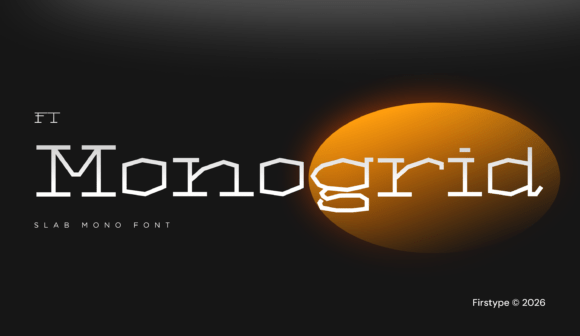
Monogrid: A Display Typeface That Cuts Through the Feed
It’s 8:47 a.m., and I’m squinting at a YouTube thumbnail on my phone—halfway zoomed in, thumb hovering over “send.” The headline reads *“New Features Drop Friday”*, but the current font feels soft. Blurry at the edges. Like it’s apologizing for existing. I swap it out for Monogrid, bump the weight to Bold, tighten the tracking by 20 units—and suddenly, it’s not just readable. It’s unignorable. That’s the moment Monogrid earned its spot in my campaign toolkit.
Monogrid isn’t built for body text or long paragraphs. It’s a display typeface engineered for impact: sharp terminals, rigid geometry, and a modular grid foundation that gives every letter an unmistakable sense of intention. It doesn’t whisper—it declares. Its personality is precise but never sterile; futuristic without leaning into sci-fi clichés; bold without sacrificing clarity. Think technical confidence meets visual authority—ideal when your message needs to land in under two seconds.
I used Monogrid across a six-week Instagram content series for a digital course launch. Not as filler—but as structural punctuation. For example:
What makes Monogrid work so well in these contexts? First, its vertical stress and generous x-height hold up even at small sizes—critical for mobile previews and thumbnails where legibility evaporates fast. Second, its consistent stroke width and open counters prevent visual “mushing” on compressed screens or low-res exports. Third, the rigid grid means letters align predictably across layouts—so your Instagram Story template stays crisp whether you’re swapping headlines daily or reusing assets across Pinterest and email.
It shines brightest in short-form, high-impact roles: sale announcements (“FLASH SALE — 48 HOURS”), webinar banners (“Live Demo: June 12”), product teasers (“Coming Soon. Very Soon.”), and branded content labels (“MONOGRID SERIES // EPISODE 01”). Avoid using it for captions, pricing tables, or multi-line descriptions—its strength is singularity, not stamina. Save those jobs for a clean sans serif (like Inter or Manrope) or a warm, highly legible serif (like Lora or EB Garamond) for pairing.
Font pairing is where Monogrid becomes strategic. I default to a neutral, humanist sans for supporting text—something with friendly proportions and strong hinting for screen use. When layering Monogrid over photography or gradients, I’ll often add a subtle white or black stroke (1–1.5px), especially on busy backgrounds. On dark UIs or video overlays, Monogrid Light or Regular can feel surprisingly elegant—just avoid ultra-thin weights unless you’re exporting at 4K+ resolution.
Before locking in Monogrid for client work or merch, I always check three things:
1. Style range: Does the package include at least Light, Regular, Bold, and ExtraBold? (Monogrid delivers—plus true italics and stylistic alternates for key characters like ‘a’, ‘g’, and ‘R’.)
3. Language support: Does it cover Latin Extended-A, basic Cyrillic, and common diacritics? It does—making it viable for bilingual campaigns without switching fonts mid-layout.
One real-time test I run before finalizing any campaign asset: the “thumb scroll test.” I load the graphic into my phone’s gallery, scroll past it twice at normal speed—then ask: Did I register the core message? Did the font feel like part of the idea—not just decoration? With Monogrid, the answer is almost always yes. It doesn’t compete with imagery; it frames intent. It turns “here’s something new” into “this matters—pay attention.”
That’s why it lives in my go-to folder alongside my most-used design assets—not as a novelty, but as infrastructure. It’s the kind of display font that earns trust over time: consistent across platforms, reliable in motion and still, and flexible enough to carry tone without dictating it. Whether you’re designing a Shopify banner for a summer sale, prepping a carousel for LinkedIn, or building a cohesive set of YouTube Shorts covers, Monogrid doesn’t ask you to adapt your message to fit the font. It adapts to your message—and sharpens it.
And honestly? That’s rare. Most display fonts demand attention through ornamentation or distortion. Monogrid earns it through discipline. Which, in today’s feed-saturated world, might just be the boldest move of all.